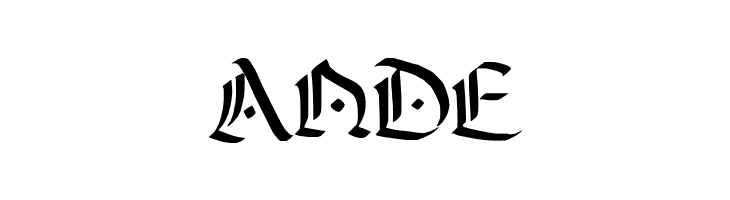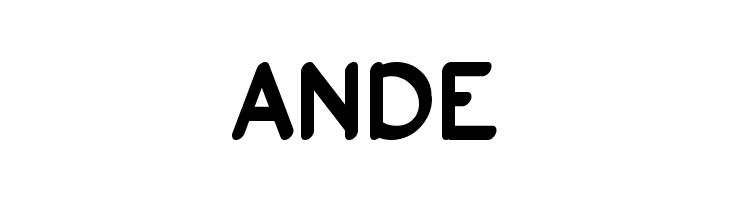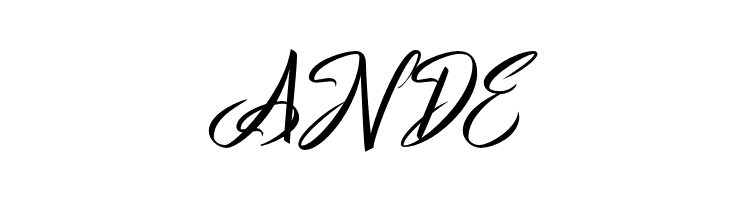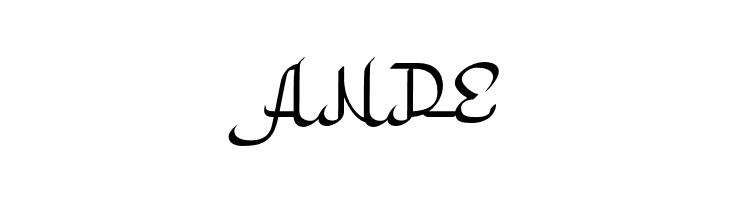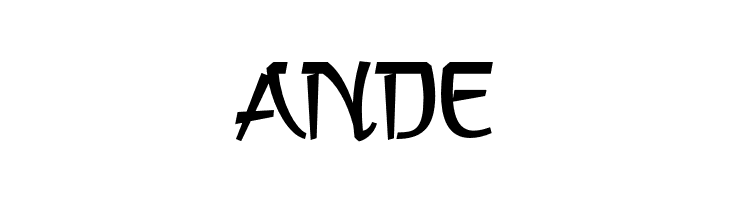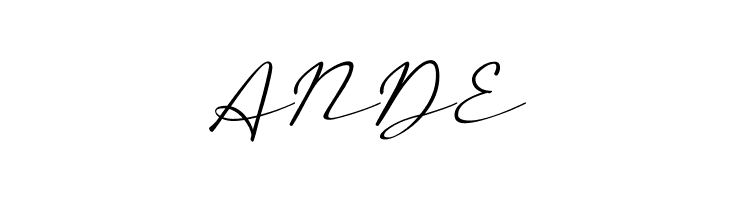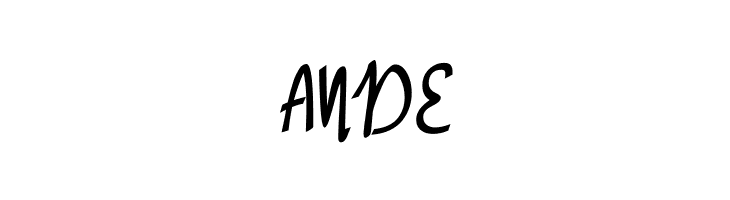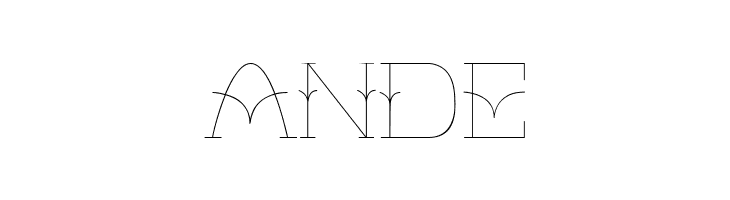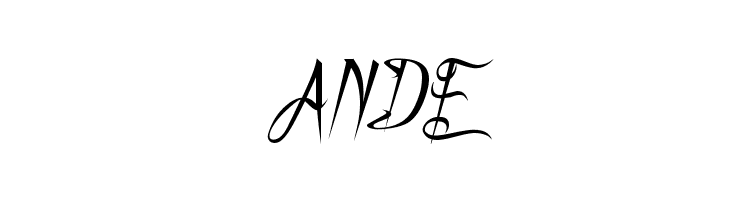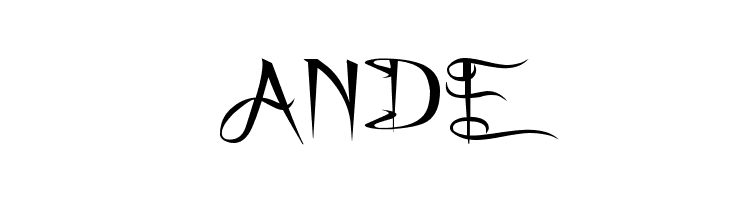
An elegant, script-like font with flowing curves and a calligraphic style.
A fluid, elegant script font with a handwritten style.
An elegant, flowing script font with smooth, cursive strokes.
A rounded, modern font with smooth curves and consistent stroke width.
A modern, rounded font with a friendly and approachable style.
A bold, expressive script font with a hand-drawn, dynamic style.
A bold, handwritten-style font with dynamic brush strokes.
A bold, angular font with a modern, futuristic style.
A bold, angular font with a modern, edgy style inspired by Asian calligraphy.
An elegant, cursive font with fluid, connected strokes and a refined aesthetic.
A graceful script font with fluid, cursive strokes and connected characters.
A playful handwritten font with bold, dynamic strokes and a lively aesthetic.
A playful, handwritten font with smooth curves and a lively style.
A playful, cursive script font with dynamic, flowing letterforms.
A flowing, cursive font with a handwritten, elegant style.
A flowing, cursive script font with a natural handwritten style.
A playful, sketchy font with a hand-drawn, textured appearance.
A bold, grunge-style font with a distressed, textured appearance.
A dynamic, cursive script font with a bold, handwritten style.
A bold, distressed font with a vintage, grunge aesthetic.
Bold, distressed font with a boxed, cut-out style.
An ornate and decorative font with intricate, flowing lines and dramatic flair.
A decorative and artistic font with intricate swirls and flourishes.
An elegant, italic script font with intricate flourishes and dynamic style.
An artistic, left-leaning font with gothic and whimsical elements.
An intricate and decorative outline font with artistic flair.
An ornate and decorative font with intricate, flowing lines and elegant flourishes.
A bold, modern sans-serif font with geometric precision.
A dramatic Gothic script with sharp, angular lines and intricate detailing.
A tall, narrow, and geometric font with a modern aesthetic.
A tall, narrow font with consistent strokes and a modern, minimalistic design.
A bold, angular font with a modern, tech-inspired aesthetic.
A decorative font with geometric lines and curves, offering a futuristic and artistic style.
A chaotic, glitchy font with overlapping, distorted letterforms and a dynamic, scribbled style.
A dynamic, expressive script font with chaotic, overlapping strokes.